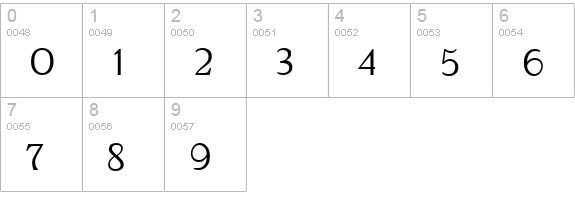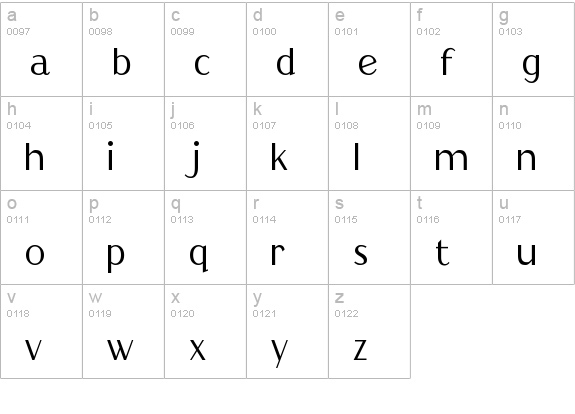
Lutetia Font Details
Lutetia font is a stunning and elegant typeface that exudes sophistication and charm. With its graceful curves and stylish design, Lutetia is perfect for adding a touch of class to your projects. This versatile font is ideal for a wide range of design applications, from wedding invitations to branding materials. The best part? Lutetia font is completely free to download at FontsMarket.com! Whether you're a seasoned designer or just starting out, you can easily access this beautiful font and use it to elevate your creations. Don't miss out on the opportunity to enhance your designs with the timeless beauty of Lutetia font. Download it today and let your creativity shine!